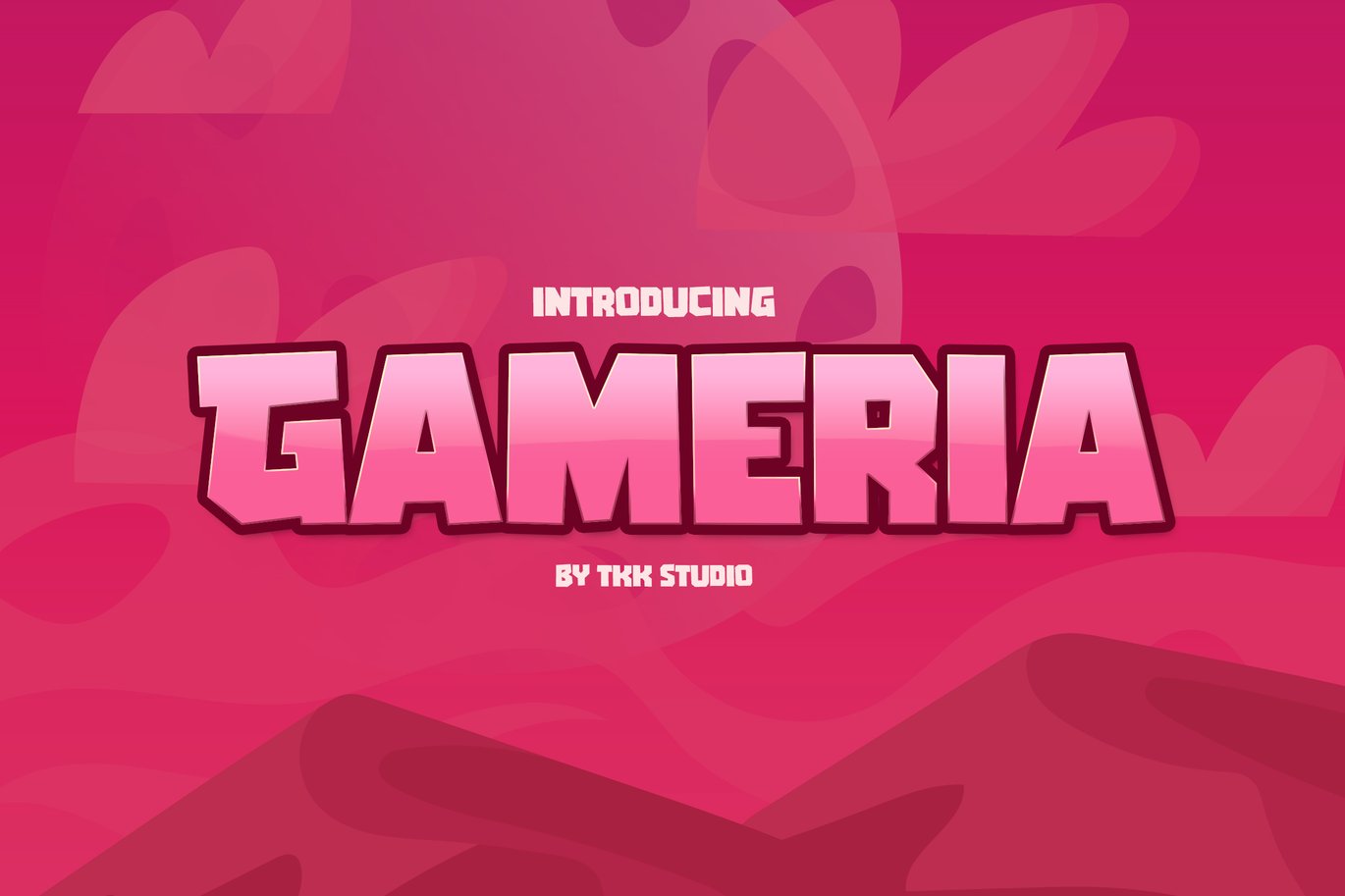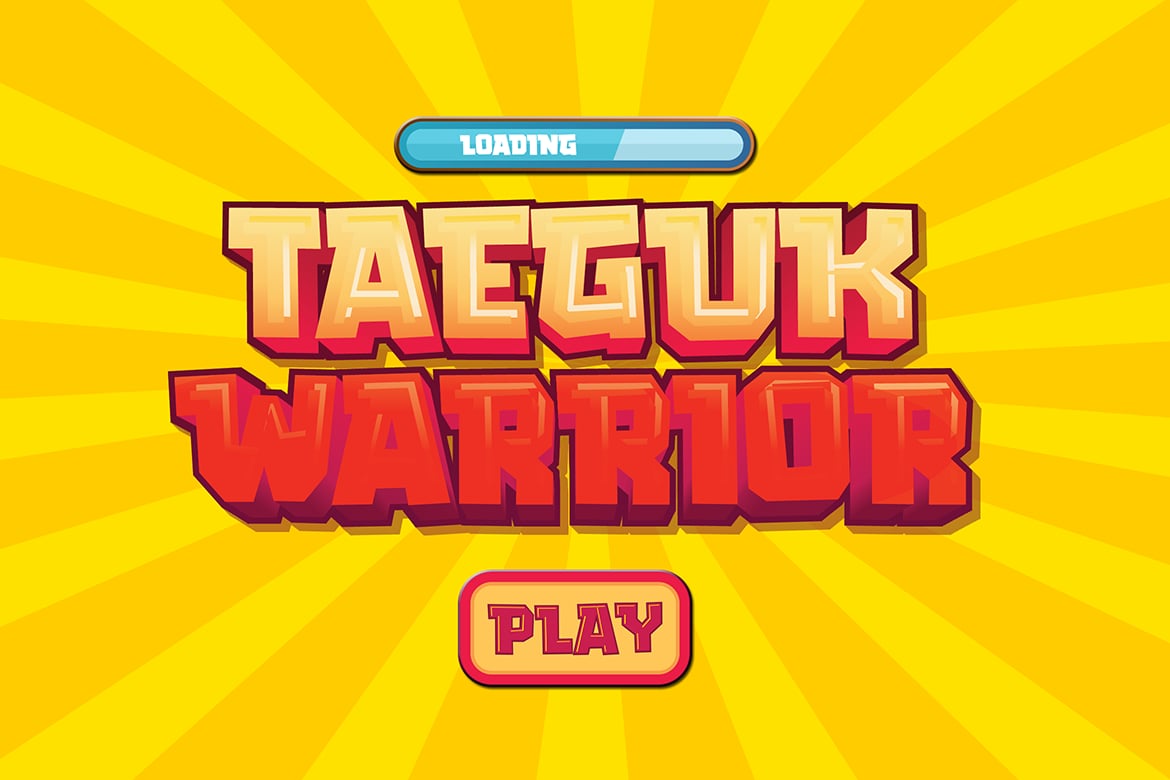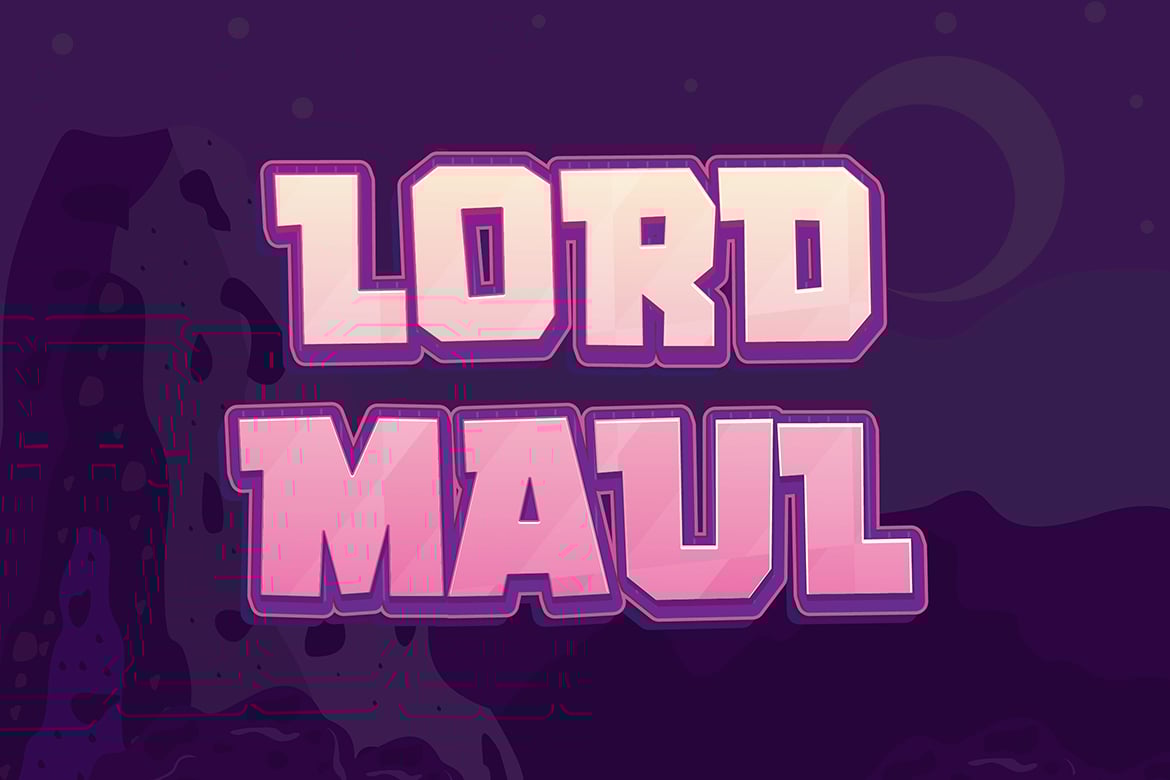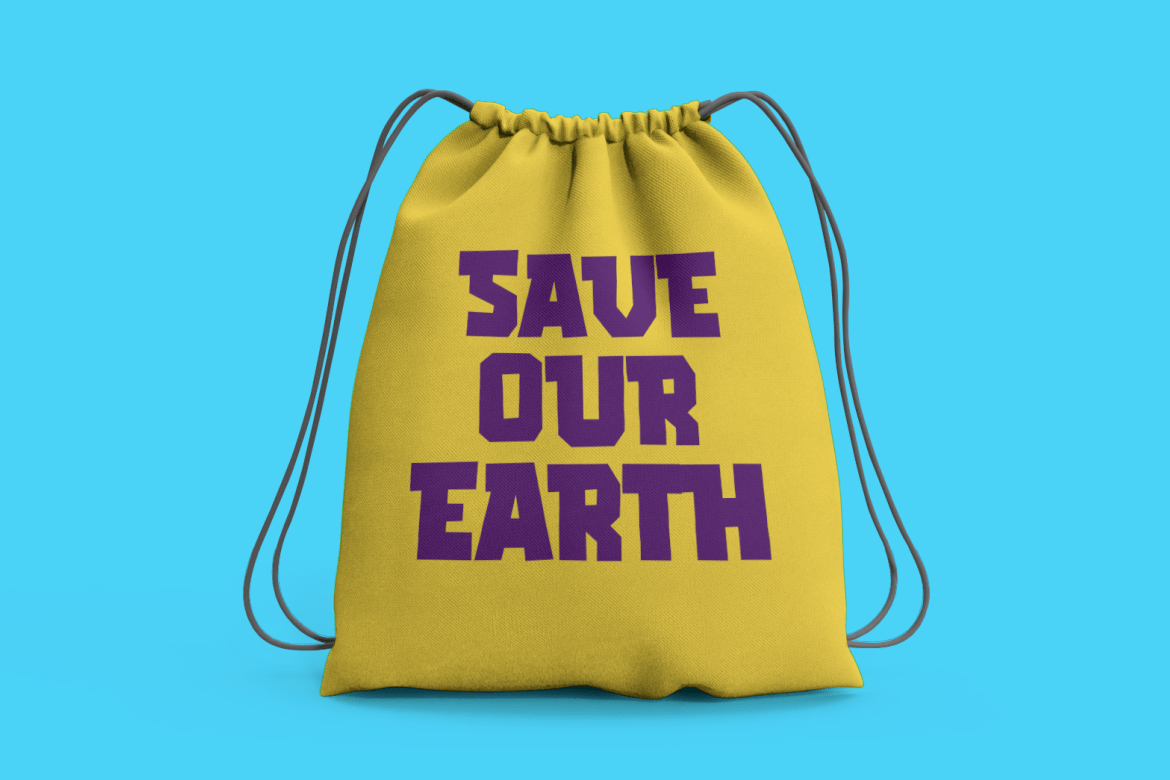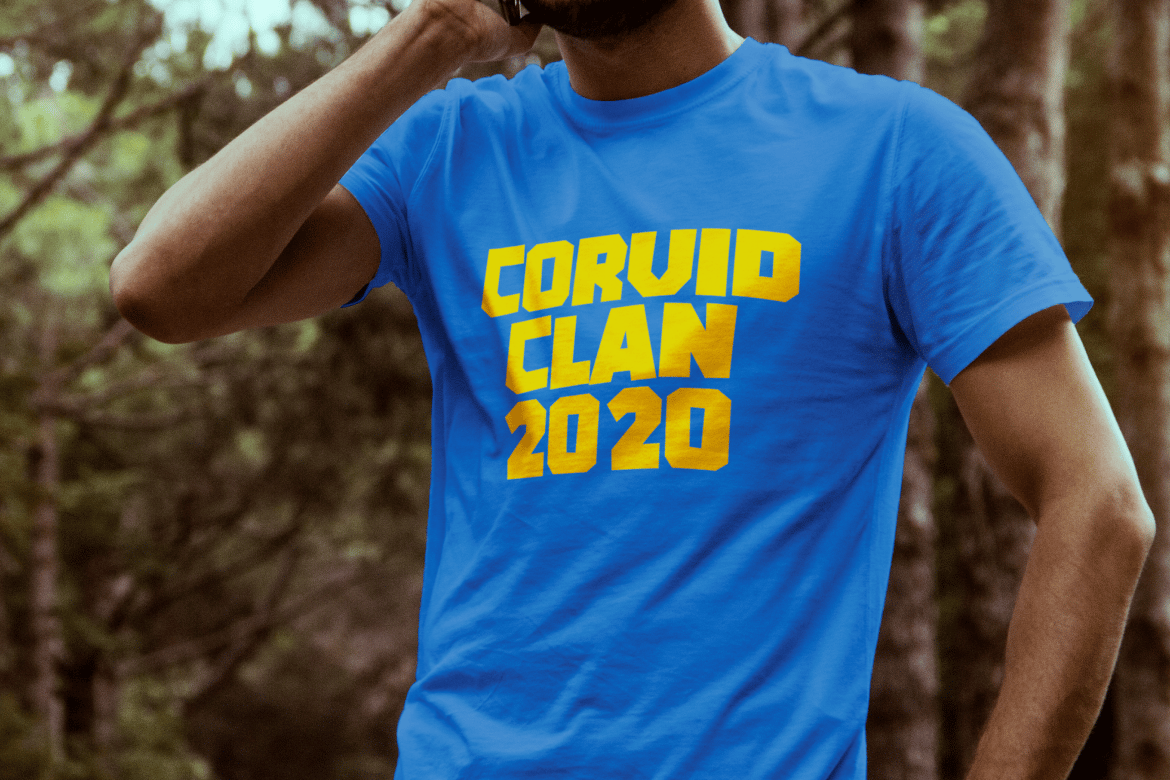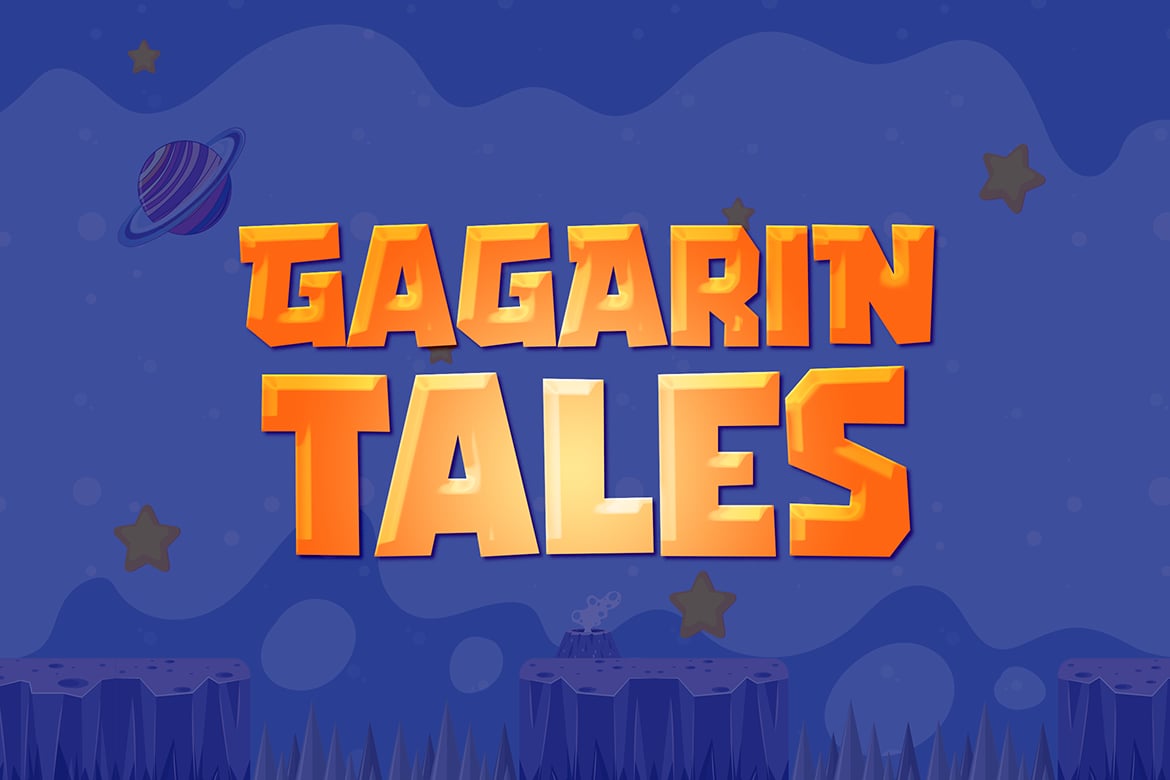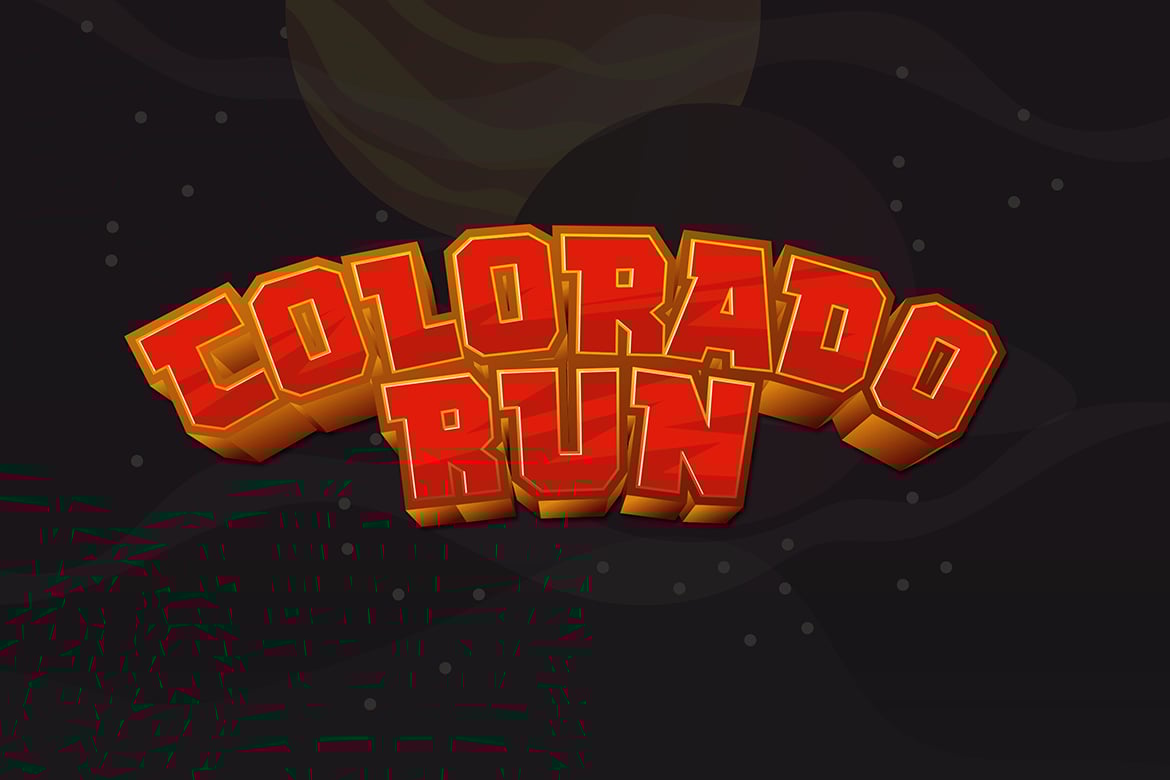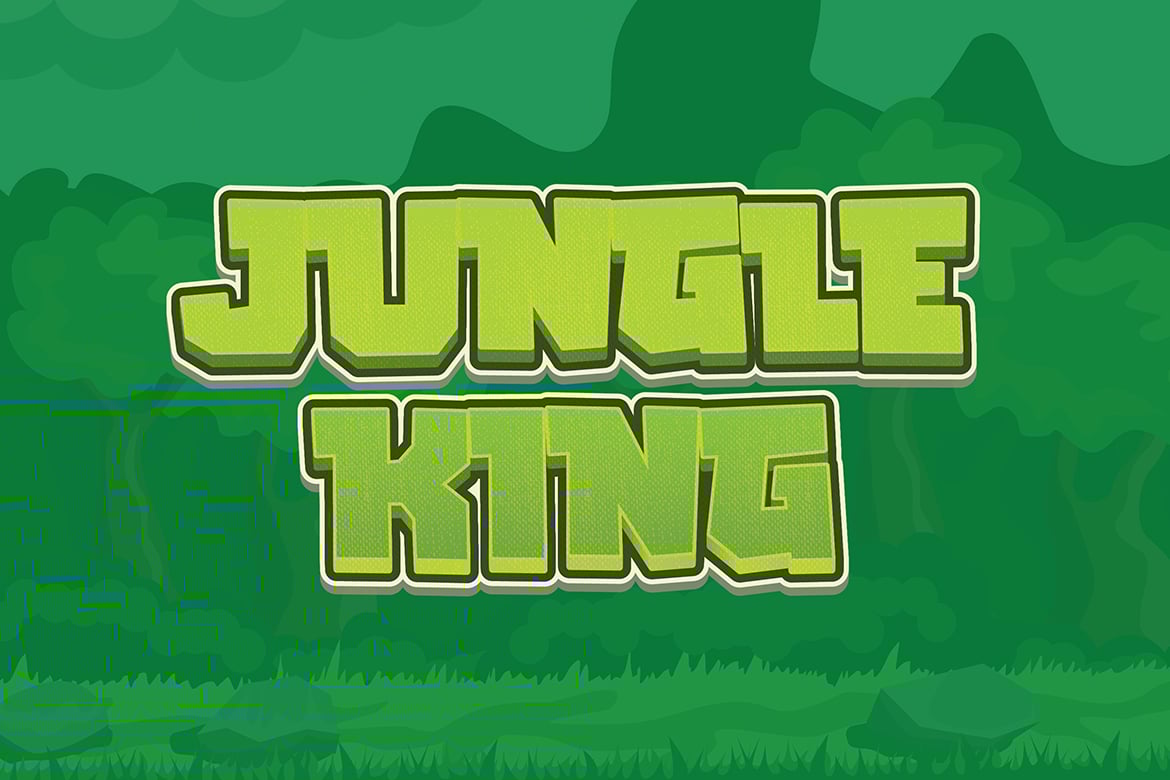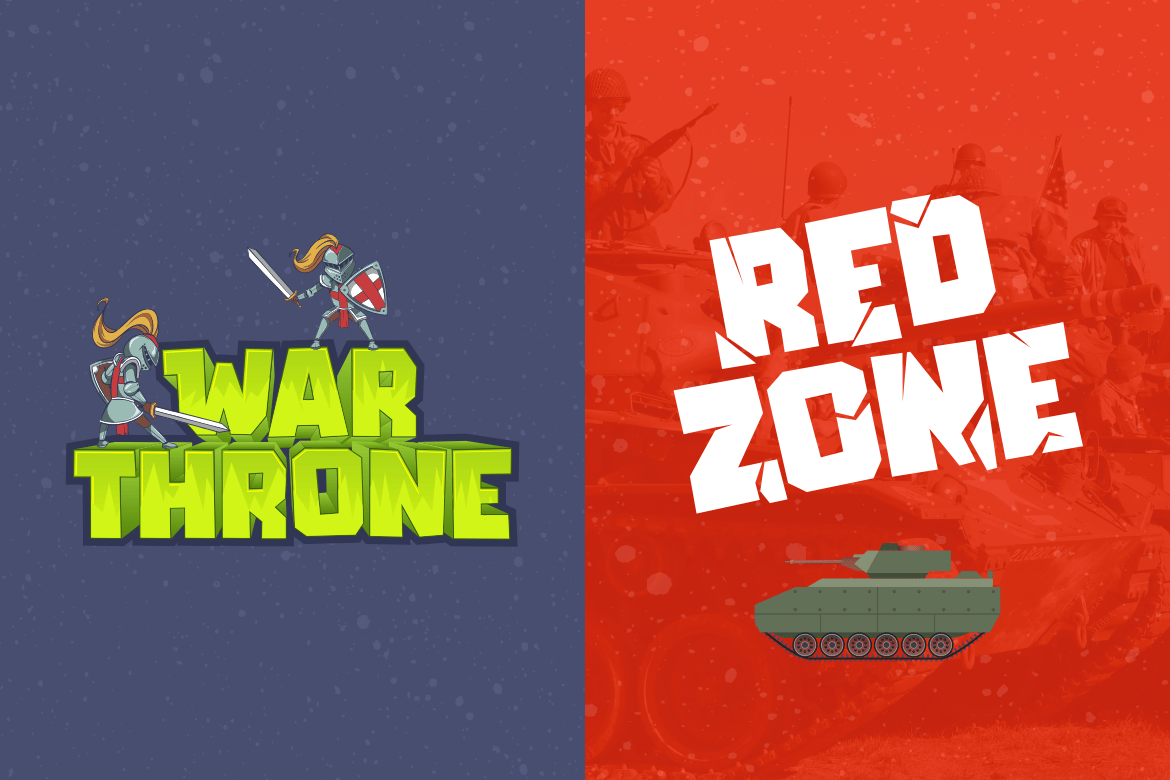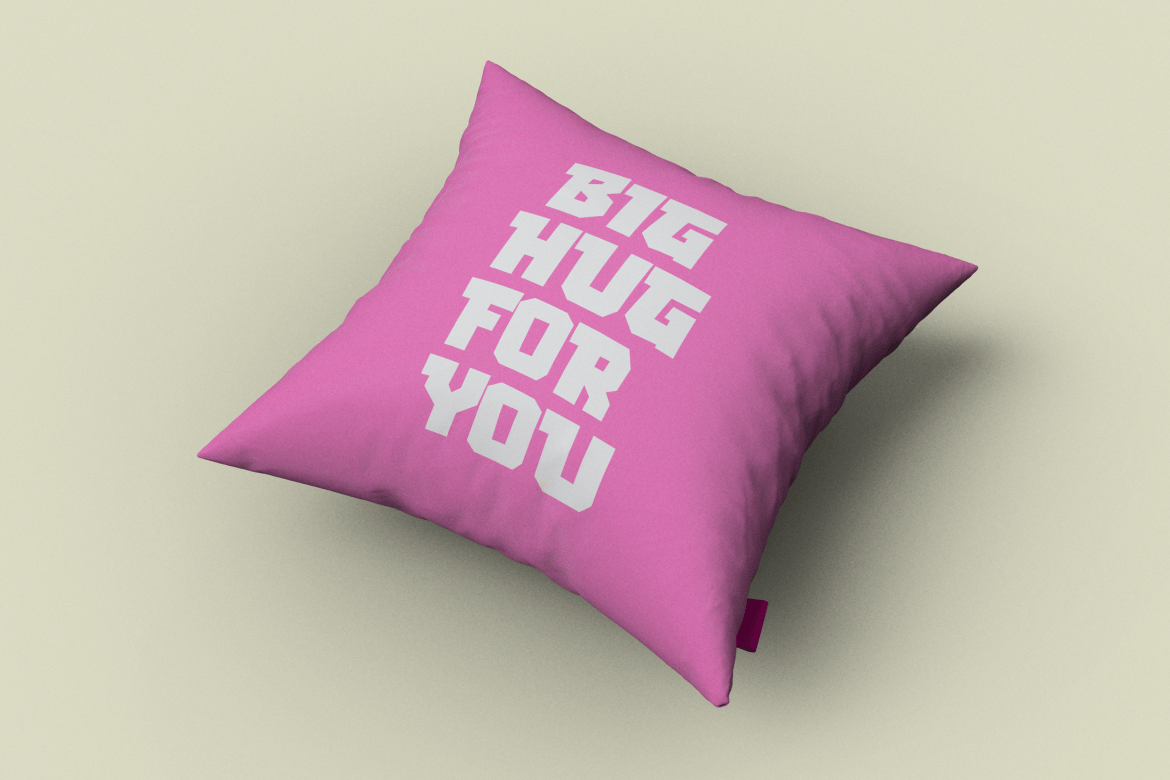
Blocky Gaming font – Gameria
GAMERIA – A Bold and Action-Packed Font for Gamers
GAMERIA is a high-energy display font designed for gaming titles, esports branding, and adventure-packed visuals. With its bold, chunky letterforms and dynamic presence, this font brings the intensity and excitement of video games to life. Whether you’re crafting game logos, YouTube thumbnails, streaming overlays, or action-packed posters, GAMERIA ensures your design stands out with a powerful and immersive look.
Inspired by retro arcade typography, action RPGs, and futuristic game titles, GAMERIA is perfect for gaming events, fantasy adventure branding, and tech-driven entertainment projects. Its versatile and eye-catching design makes it ideal for game studios, YouTubers, and esports teams looking to level up their visual identity.
Why Choose GAMERIA?
- Bold & Action-Ready – A font that brings energy and movement to your designs.
- Perfect for Gaming & Esports – Ideal for game titles, team branding, and content creators.
- Great for Adventure & Fantasy Themes – Works well for action-packed and futuristic projects.
- High-Impact & Attention-Grabbing – Designed for posters, overlays, and streaming graphics.
- Versatile for Digital & Print – Seamlessly fits game packaging, social media, and marketing campaigns.
Power up your designs with GAMERIA – the font built for champions!